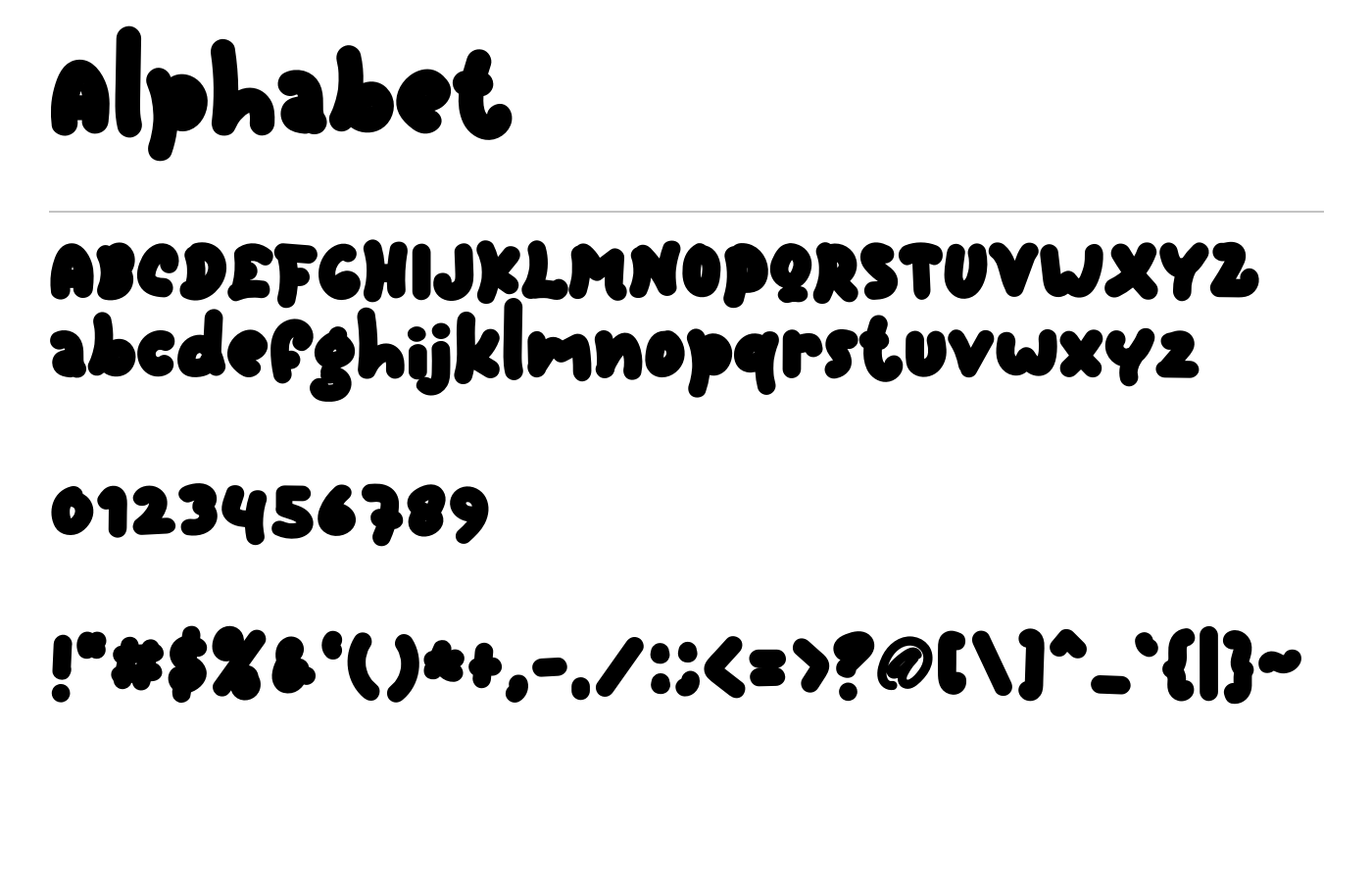
Alphabet Font is a playful, bold sans serif typeface characterized by its rounded, chunky letterforms with a soft, bubbly appearance. Its heavy weight and tight spacing give it a friendly and whimsical feel, making it perfect for fun, informal designs like children's books, cartoons, or eye-catching headlines. This font's unique style adds personality and charm, ideal for projects that want to convey creativity and joy.
Alphabet Font
About Alphabet Font
| Font family | Alphabet Font |
| Designer | Nur Edi Prayitno |